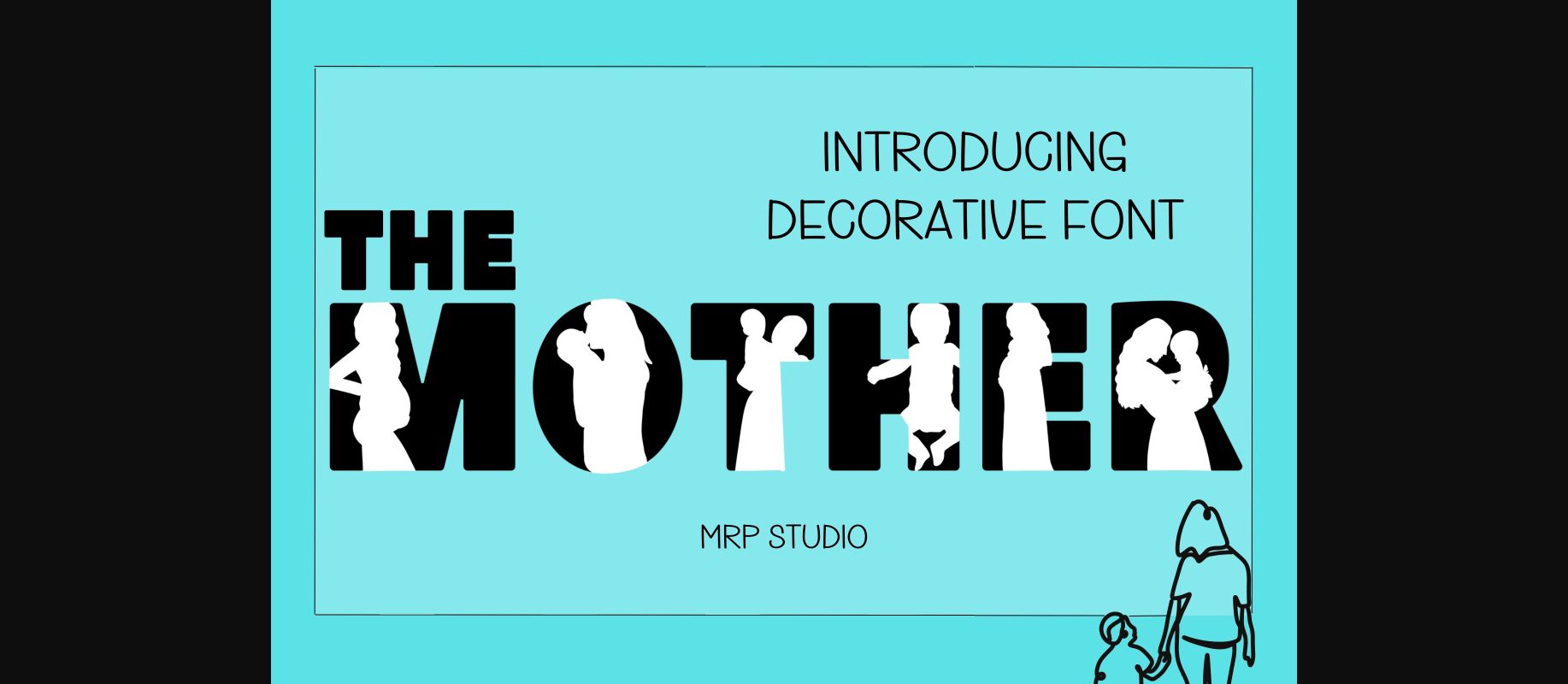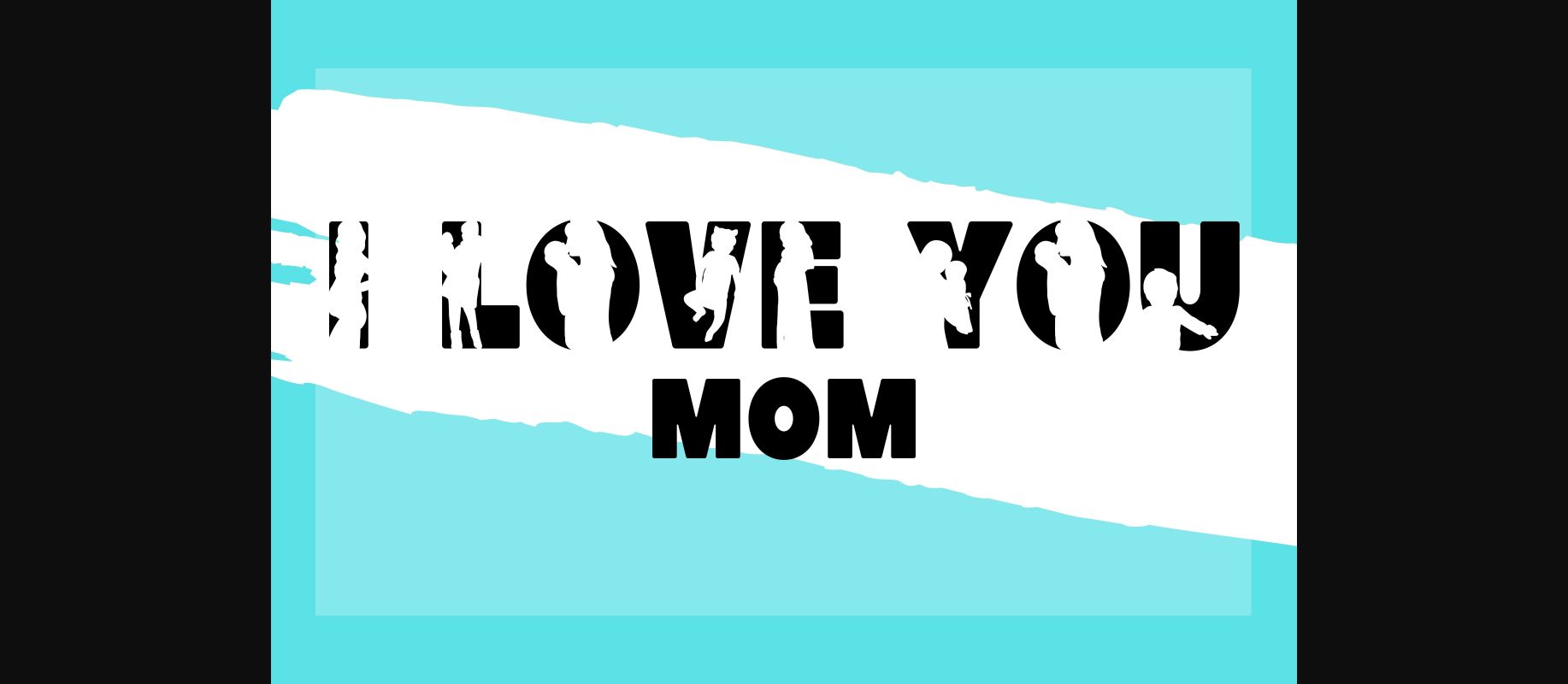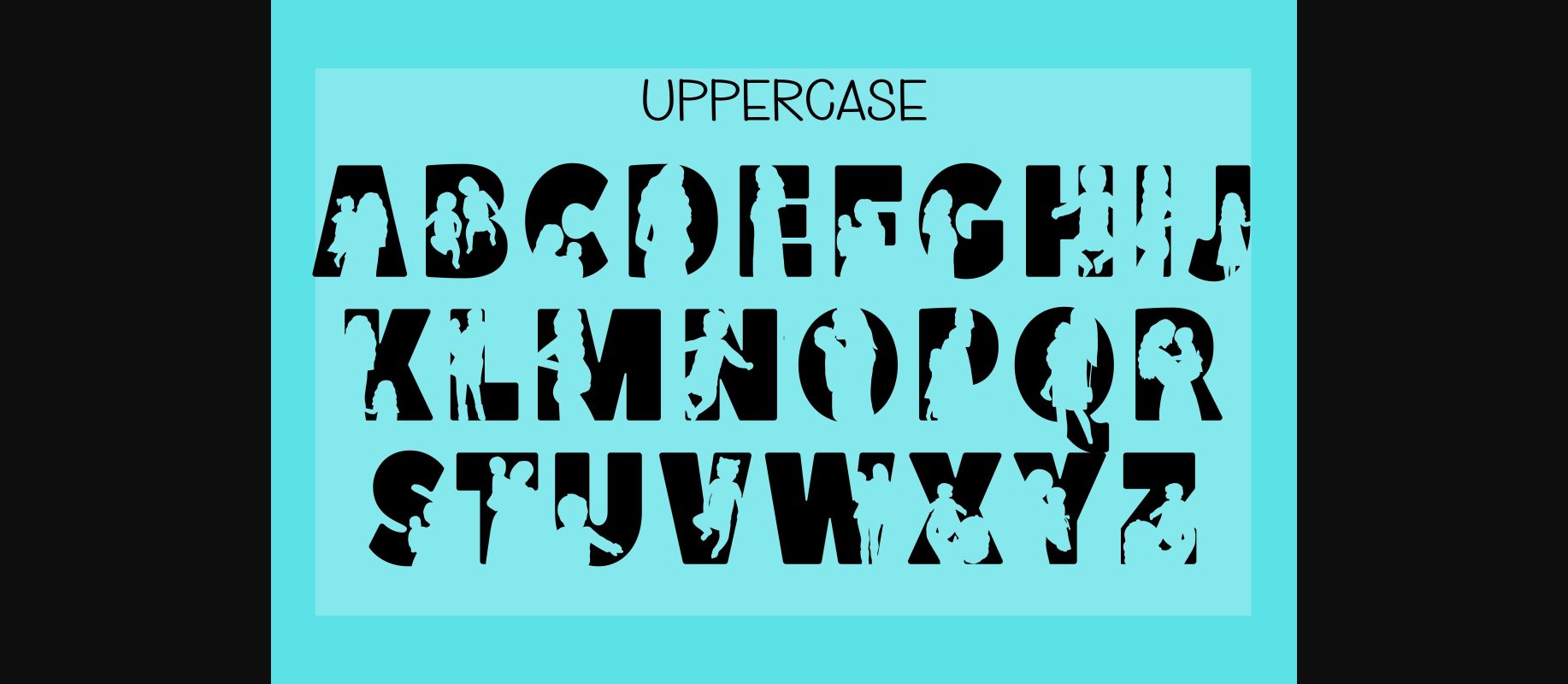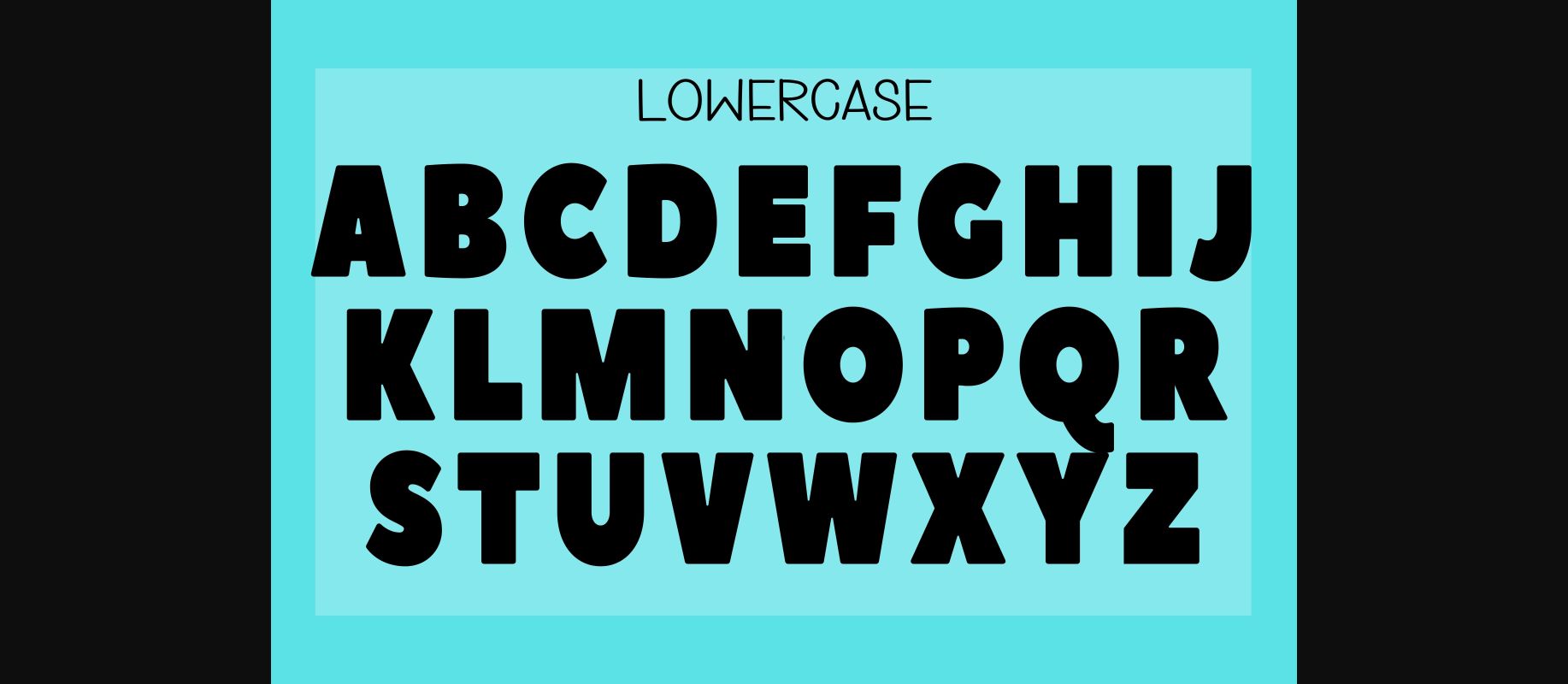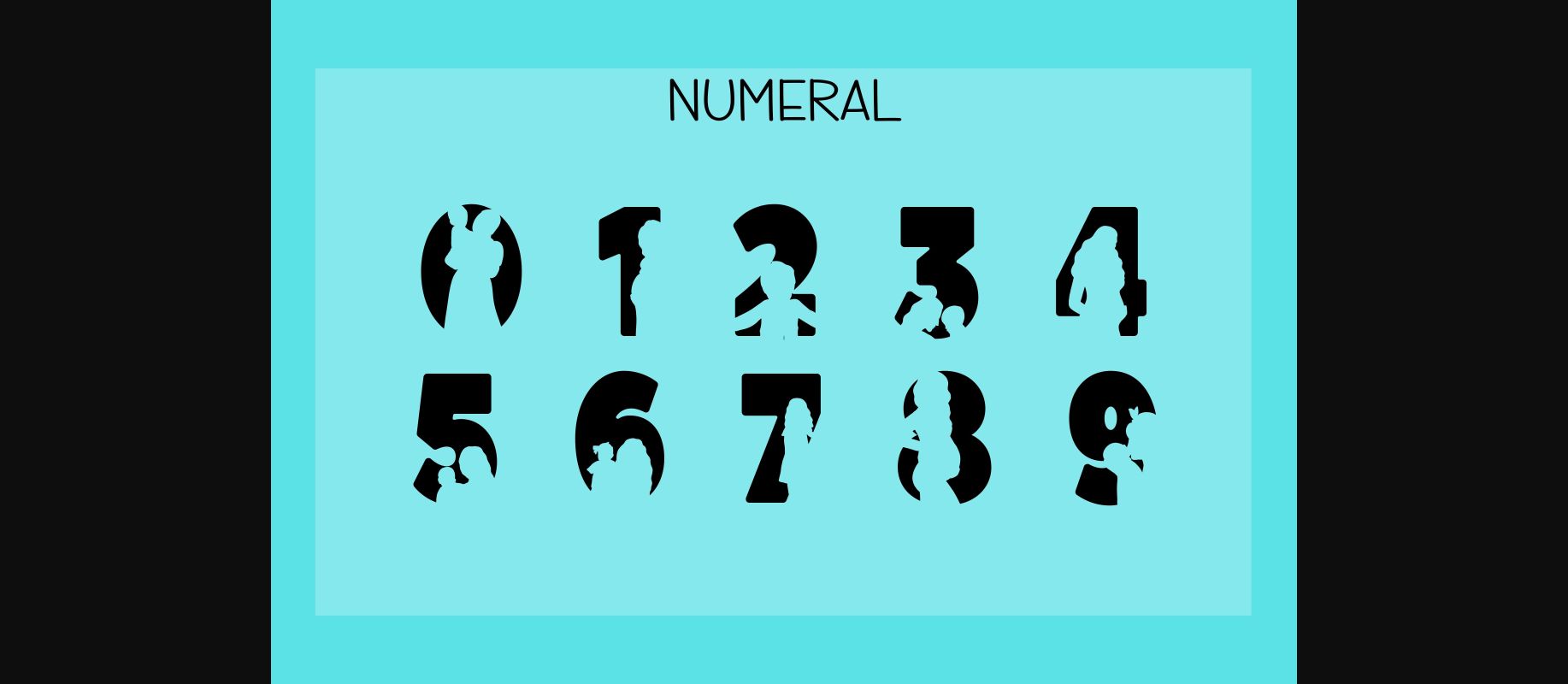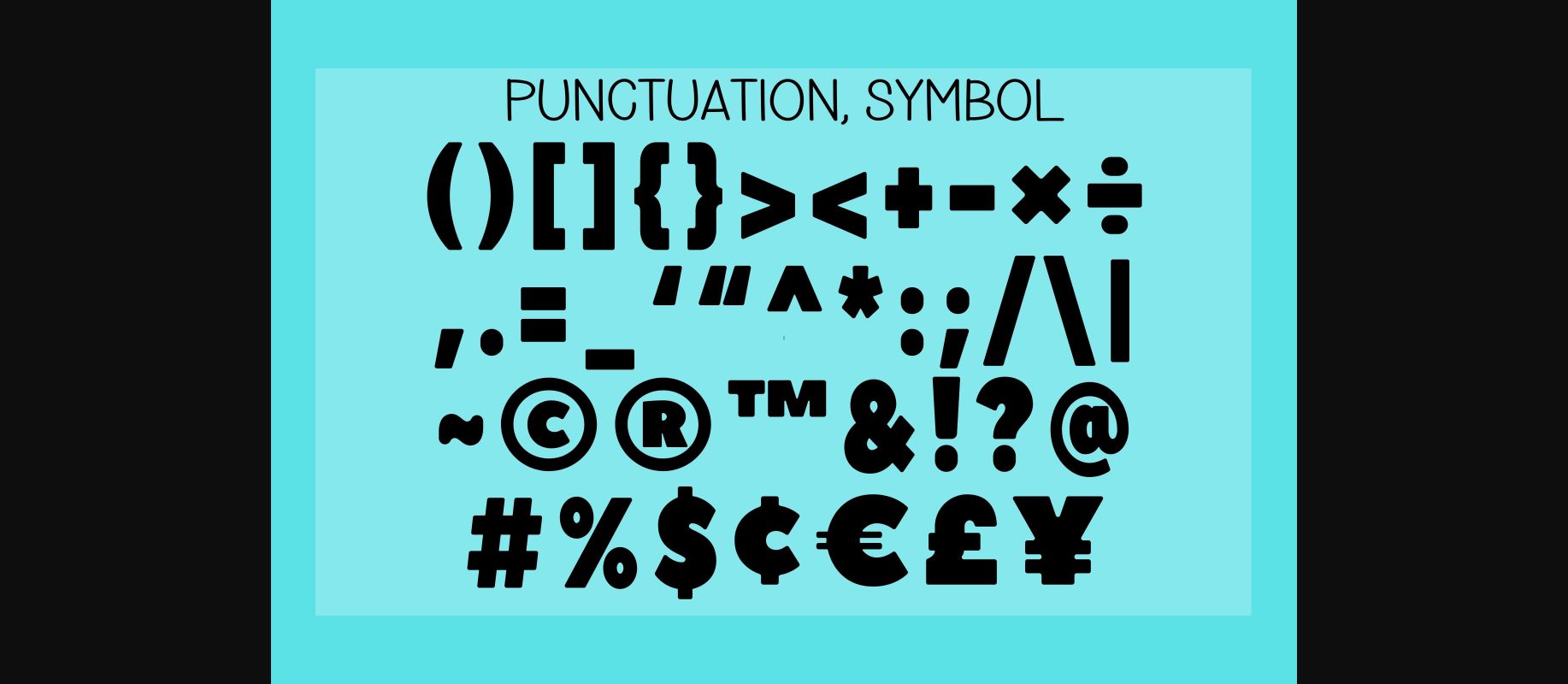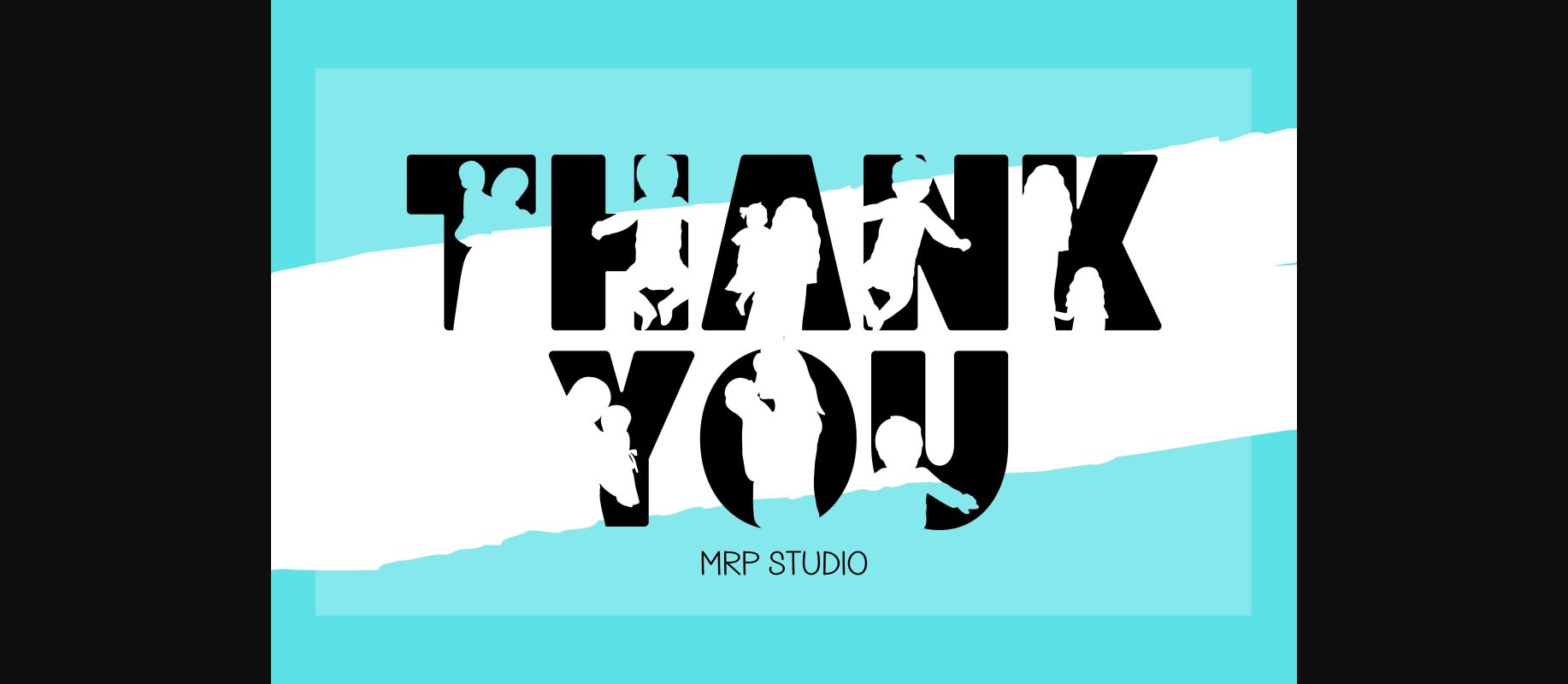
The Mother is designed in a friendly and lovely decorative font style. Fall in love with its incredibly distinct and unique style and use it to create spectacular designs!